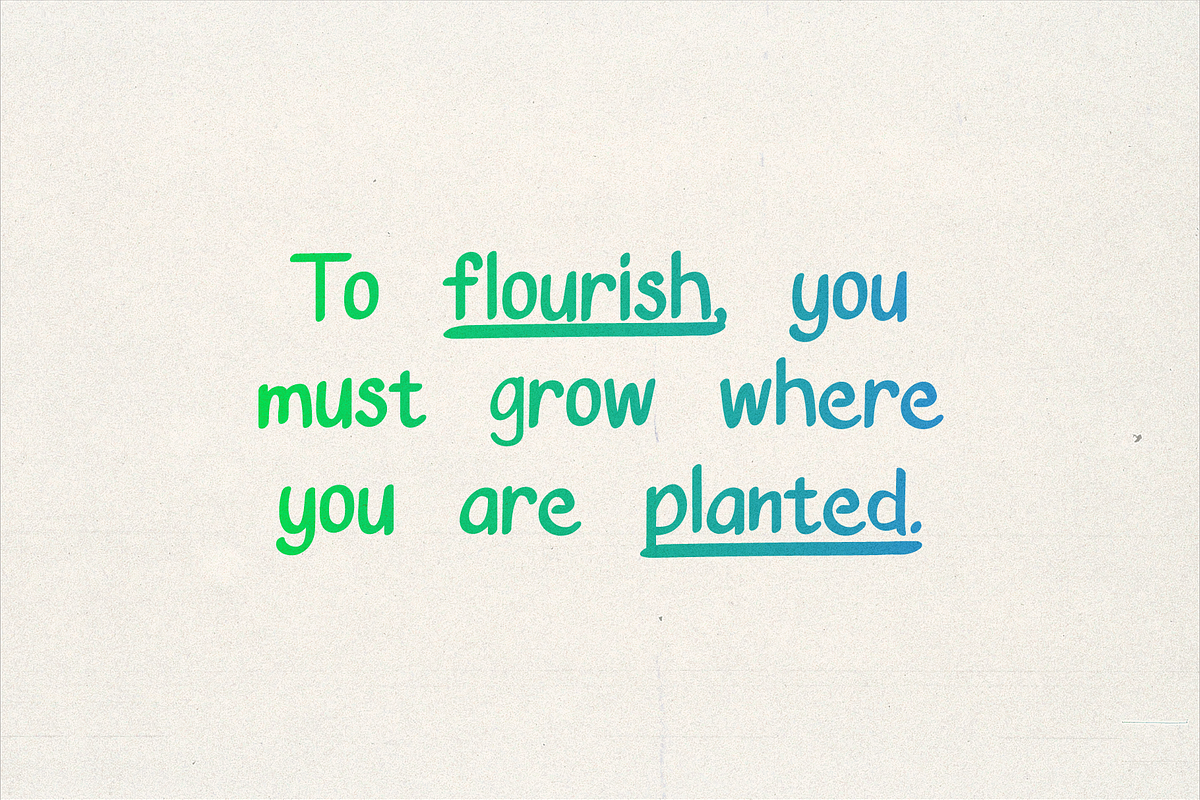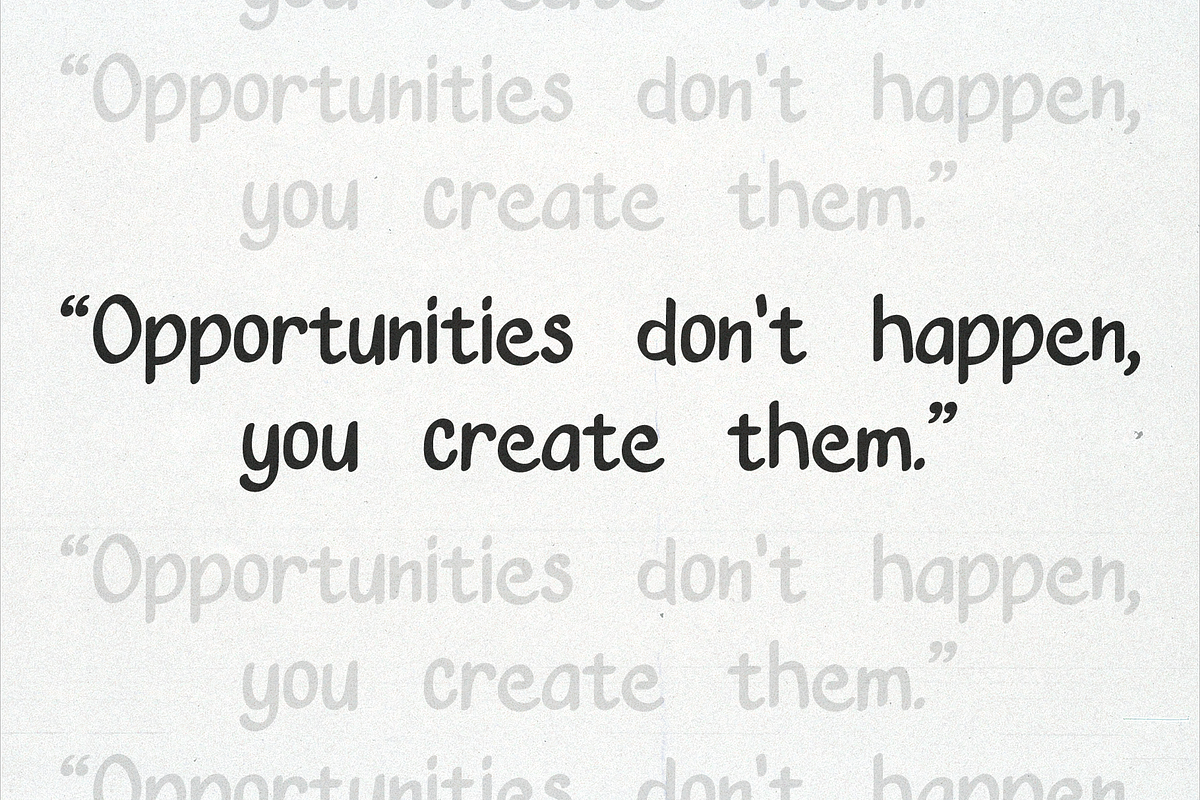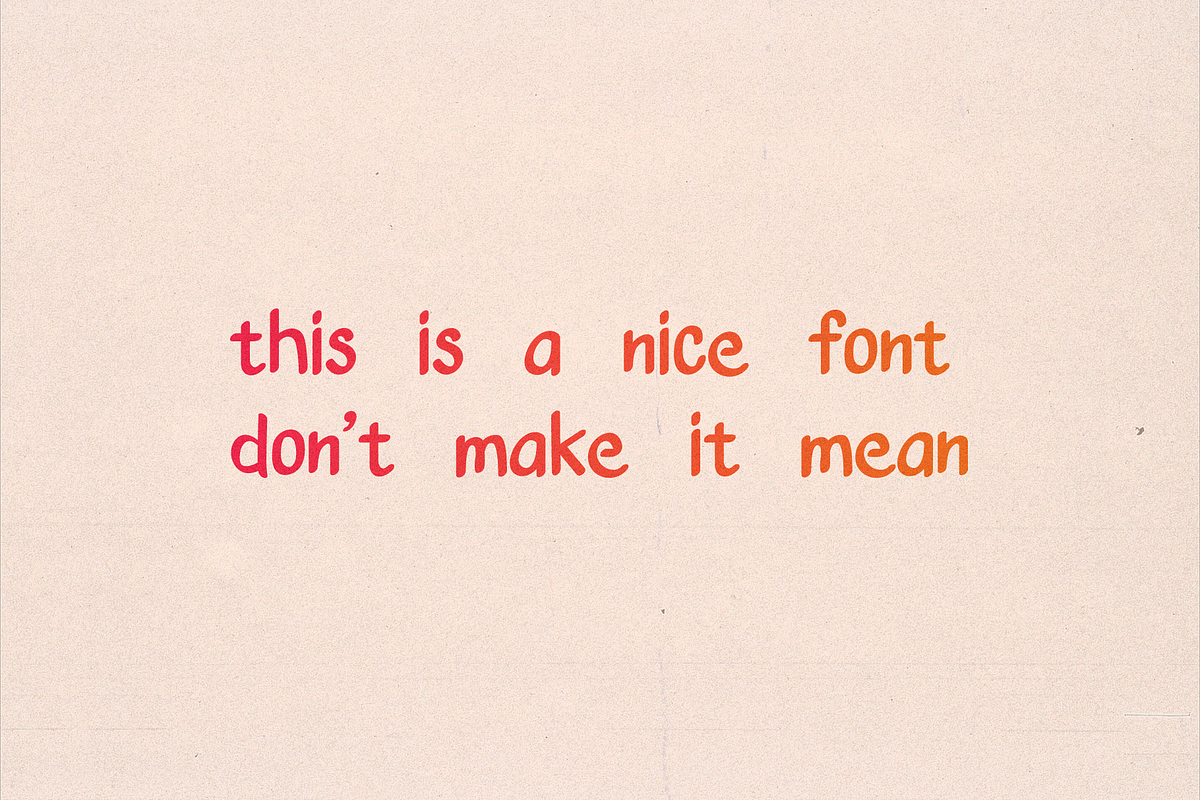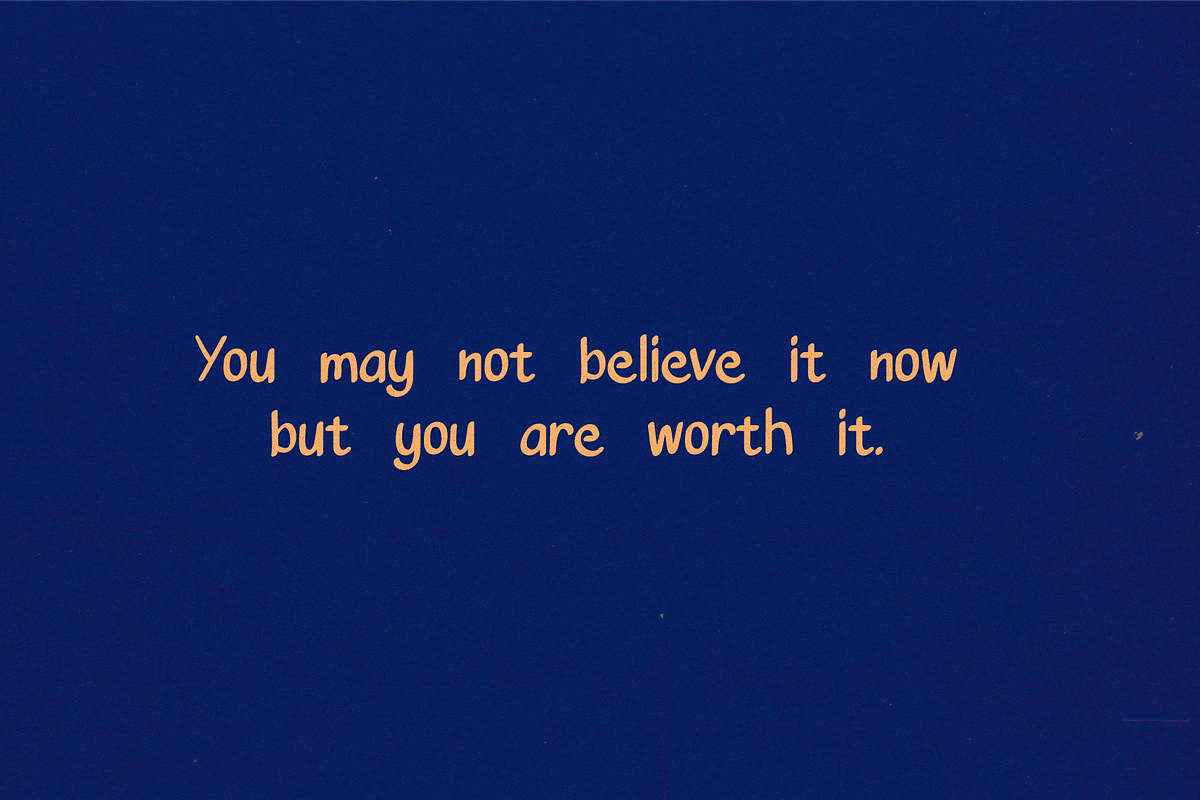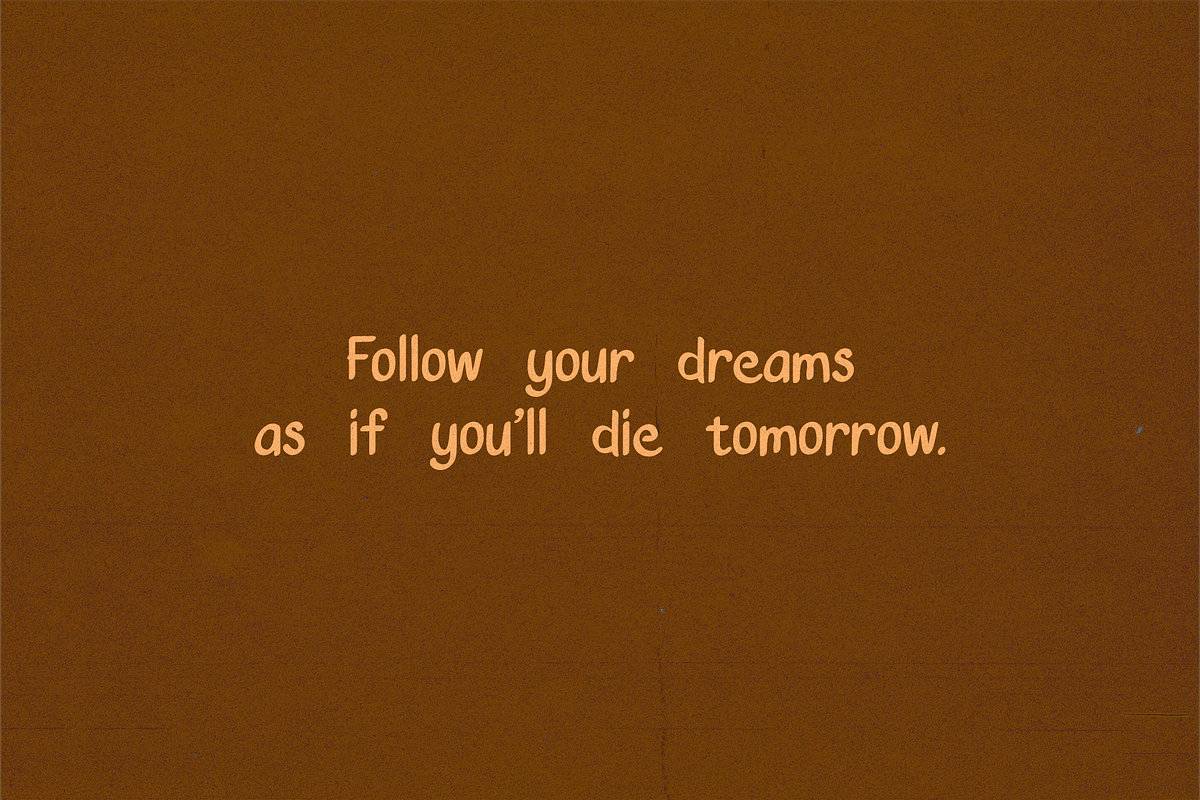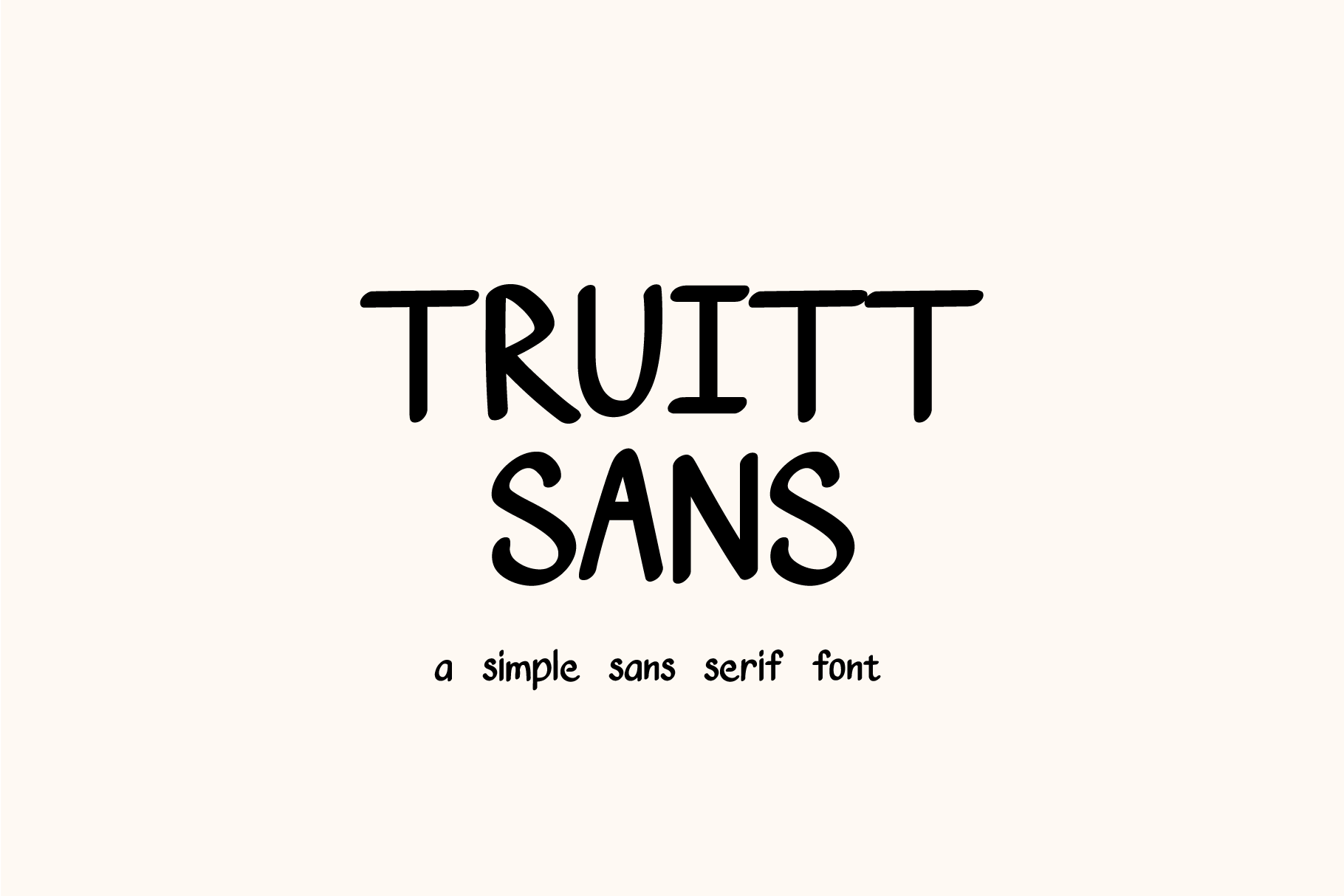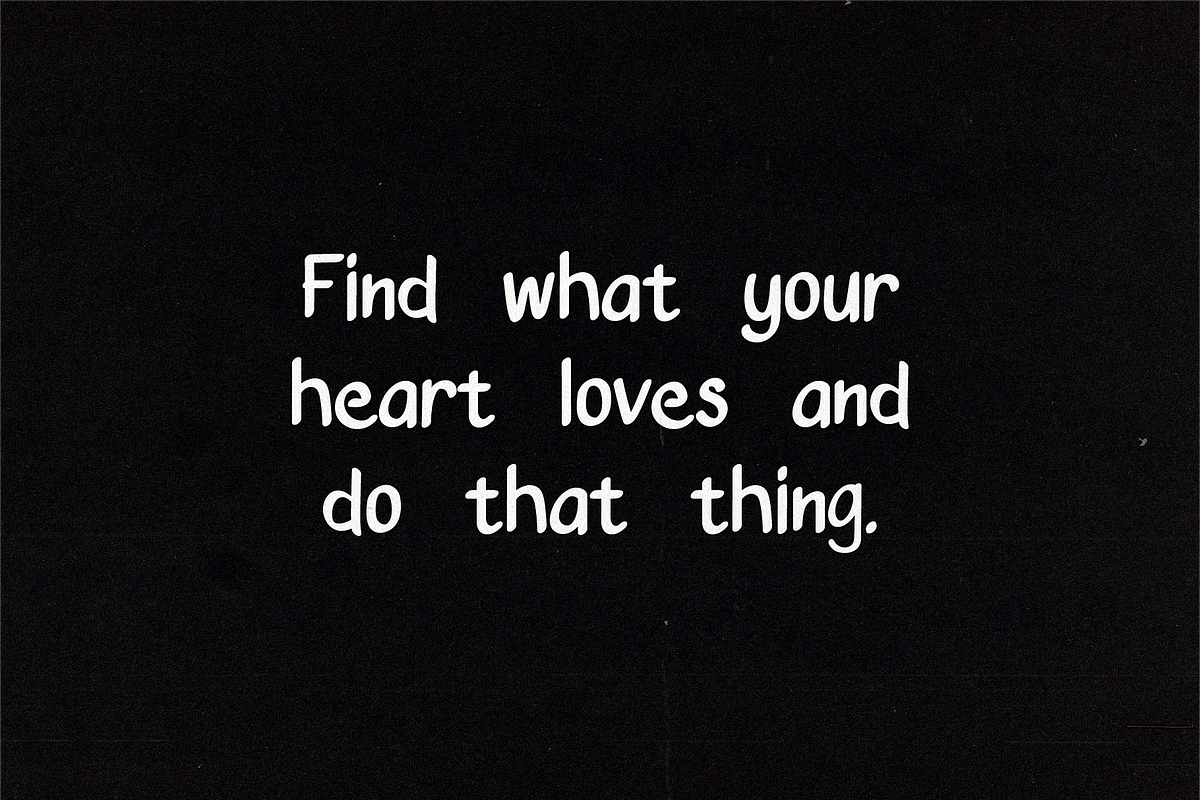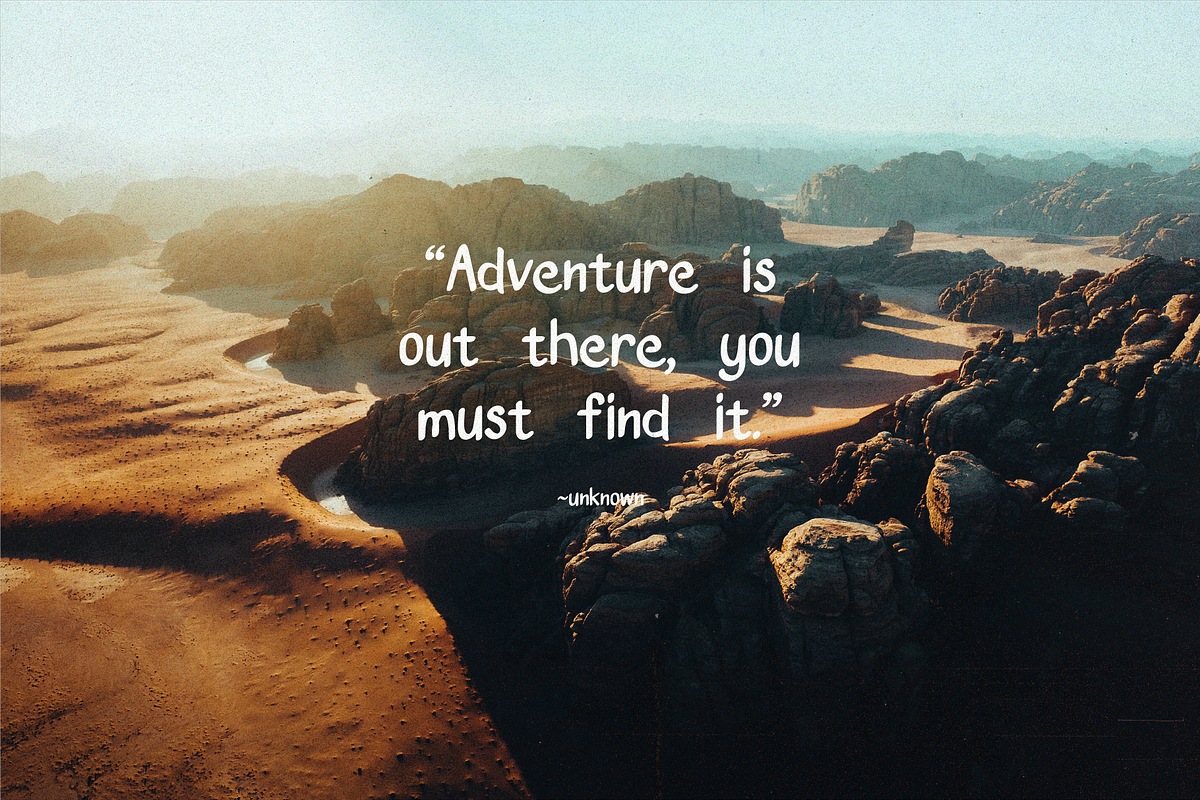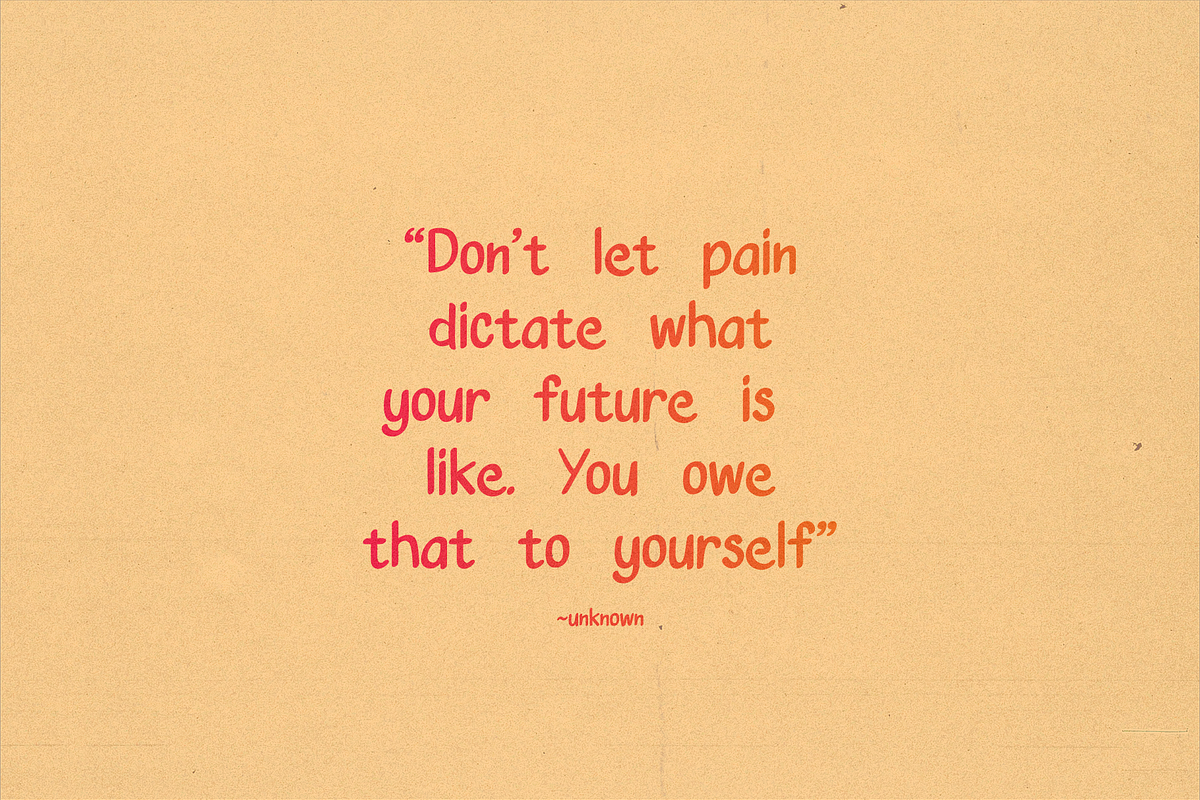
Truitt Sans - Simple Sans Font
Introducing Truitt Sans! A simple sans serif font.
Truitt sans is a hand drawn sans serif font with both uppercase and lowecase variants. Included in this typeface are all your standard ligatures.
Truitt Sans is perfect for quotes, posters, flyers, social media posts and so much more!